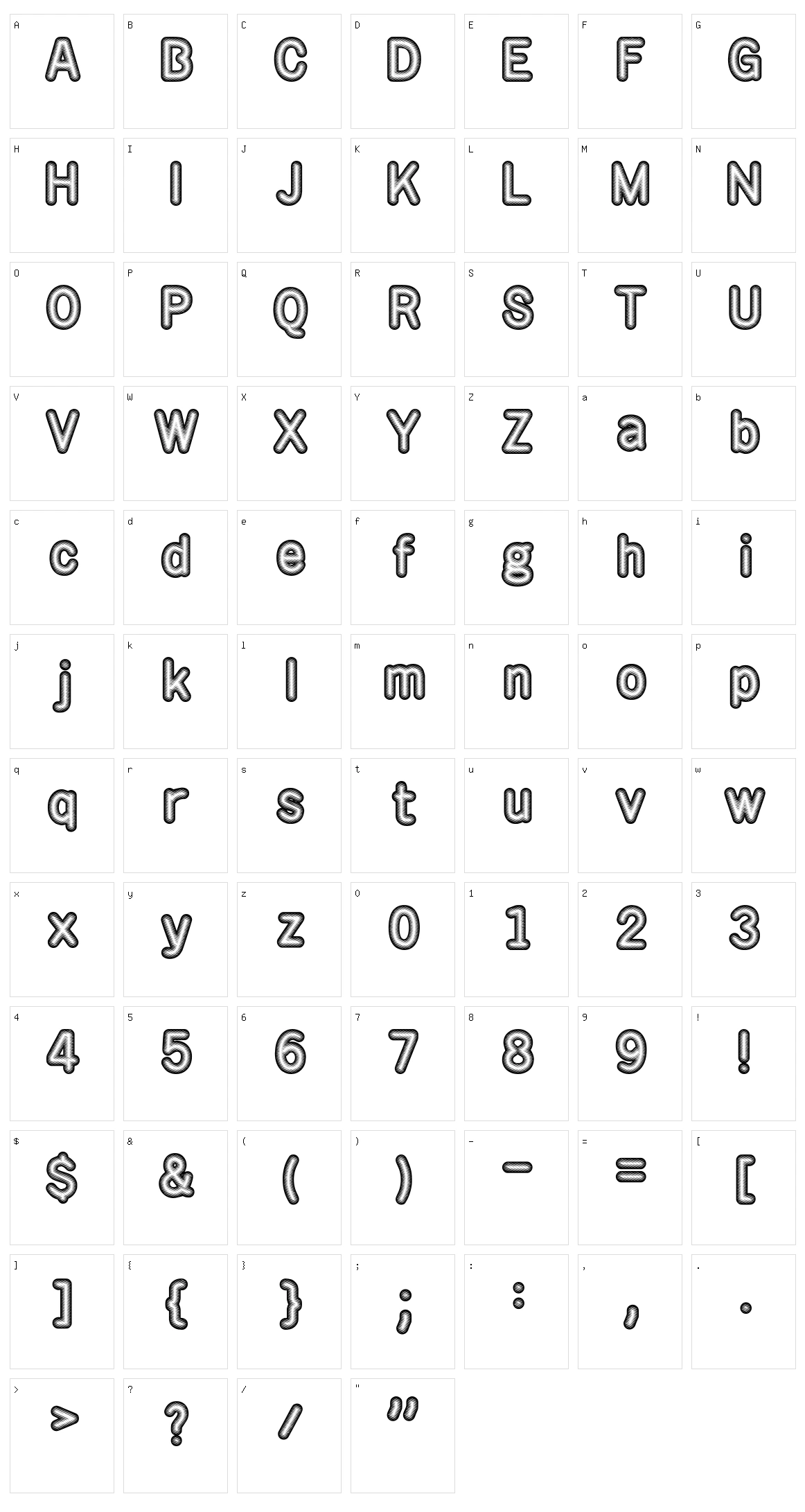
RotondoSilver is meant to be a 3-D display font to grab attention or just look slick. You will find that RotondoSilver maintains accuracy at very high resolutions, and does so with minimum complexity of paths (=minimum disk space and RAM needed).